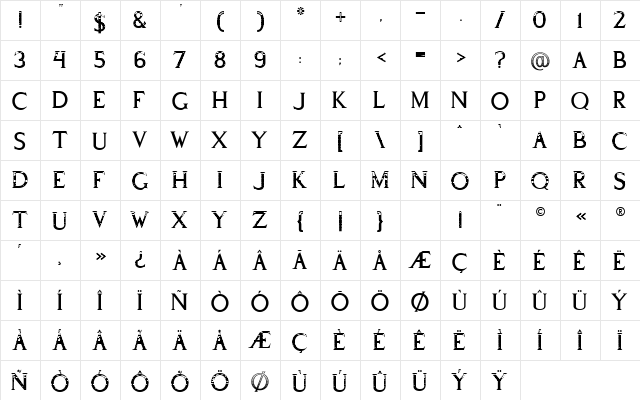
Claroscuro Regular
Design Context for Claroscuro Typeface
Claroscuro is a composed and adaptable typeface that performs quietly and consistently across a wide range of design contexts.
Pro Tip: Pair Claroscuro with a font of contrasting weight or personality to build a more expressive typographic hierarchy.